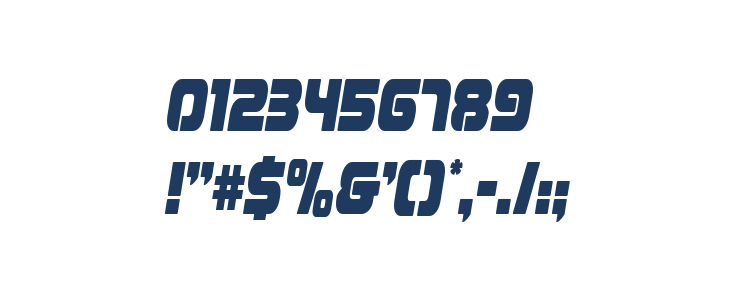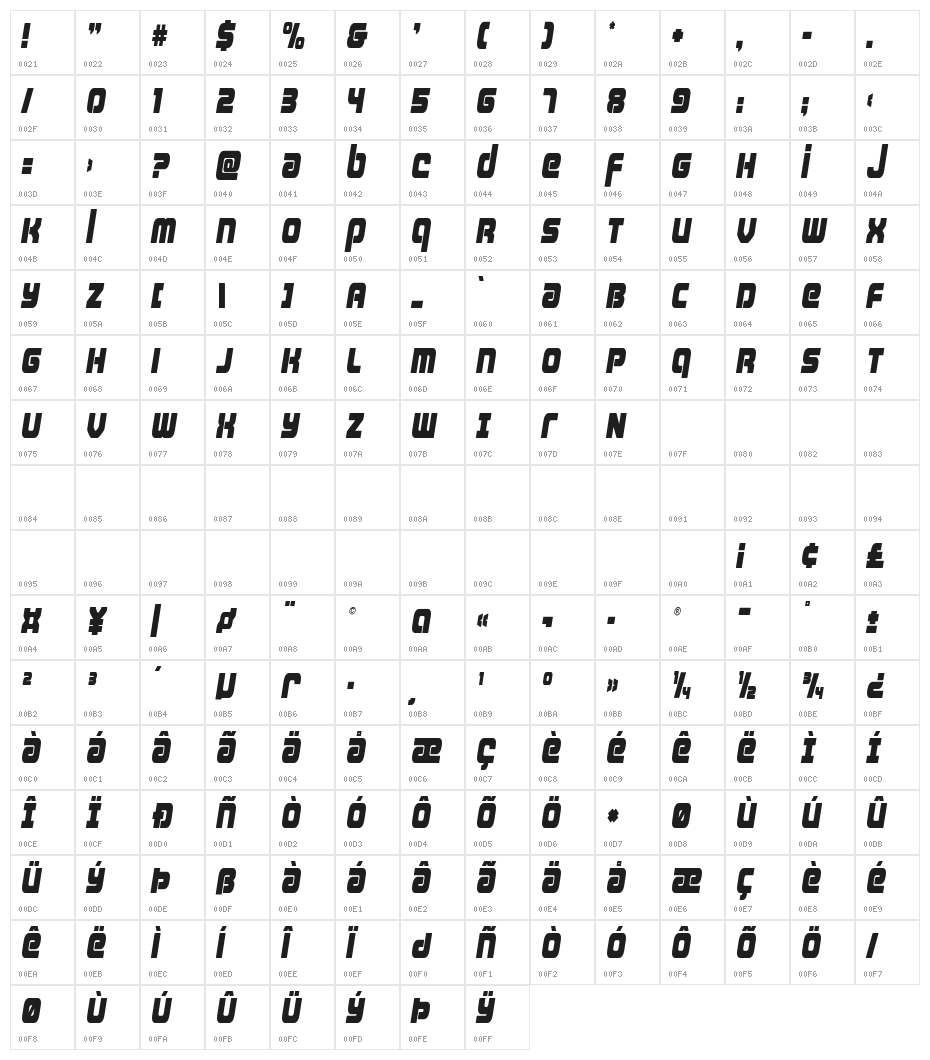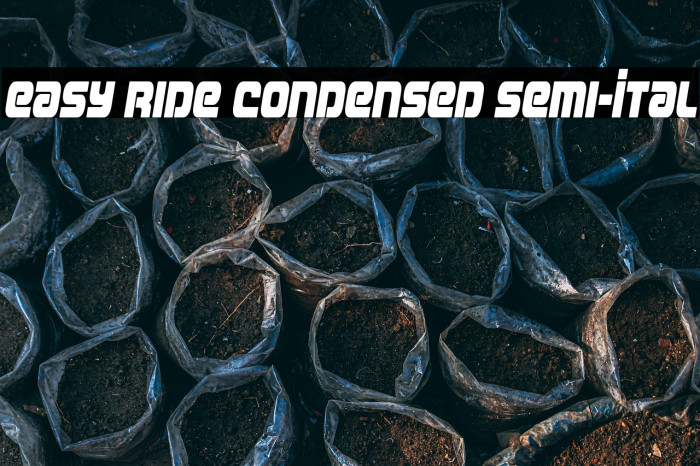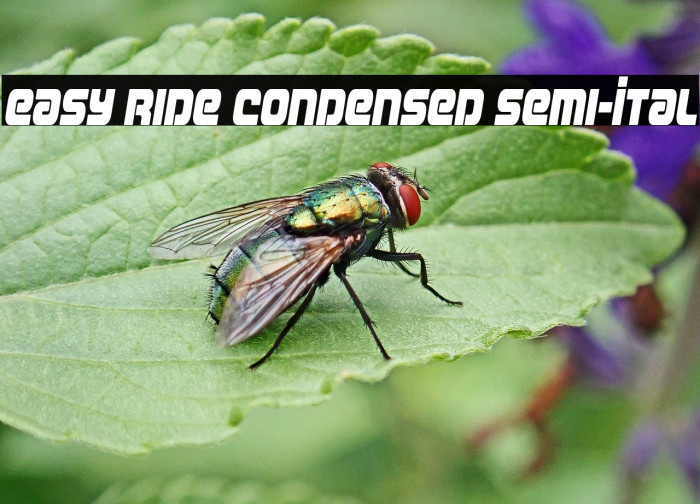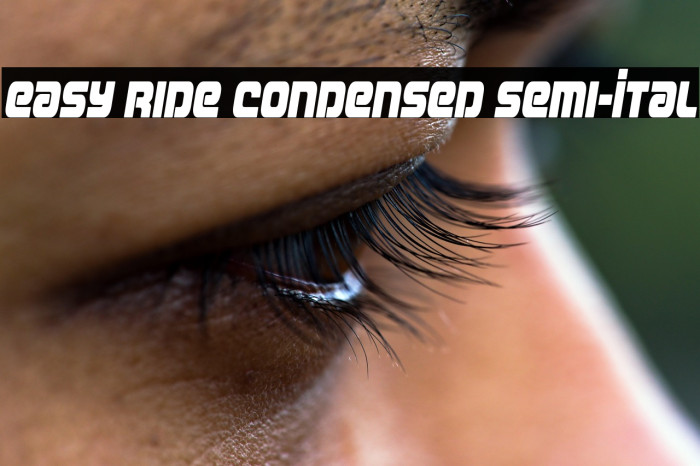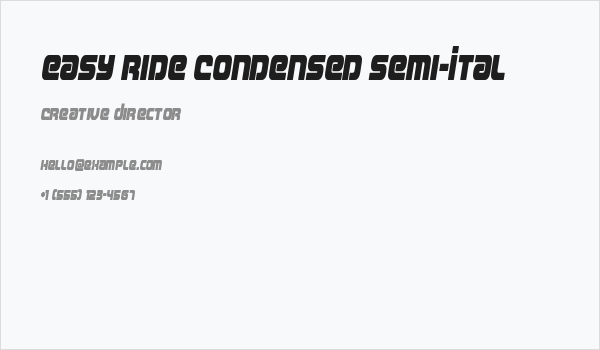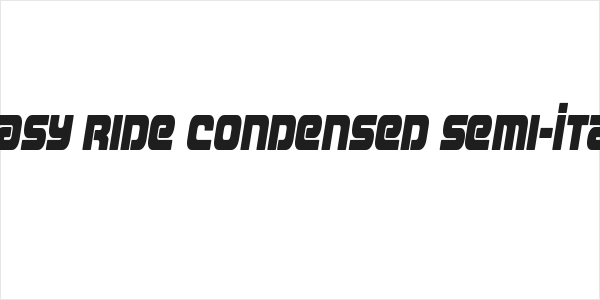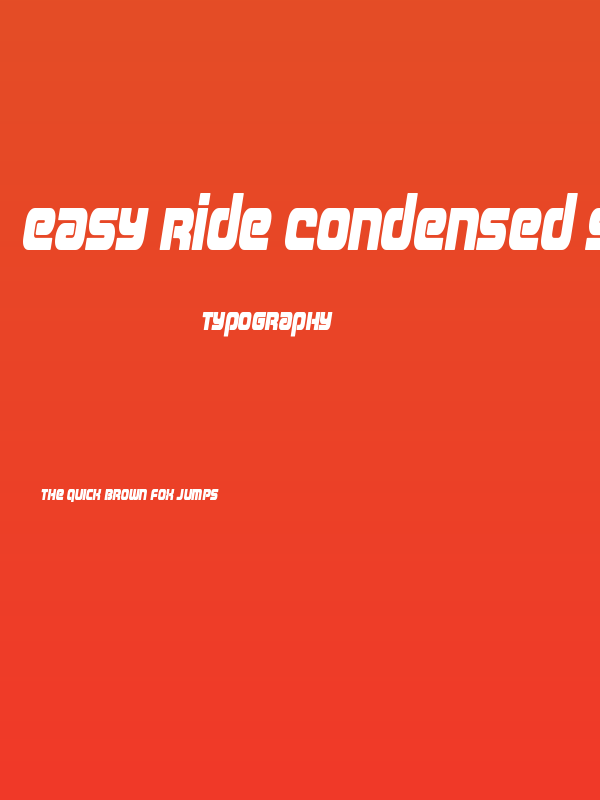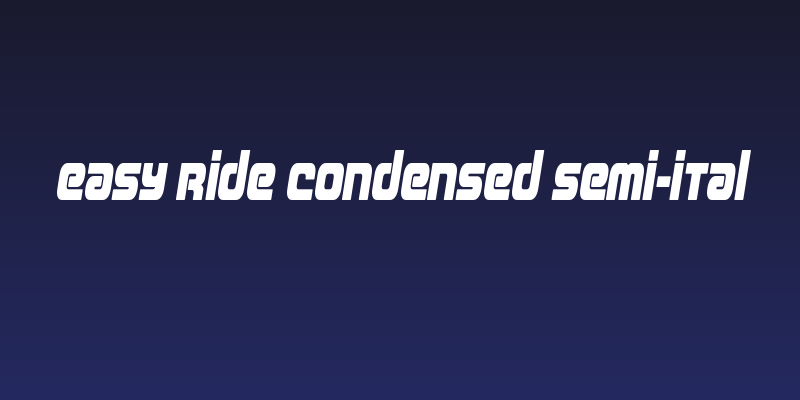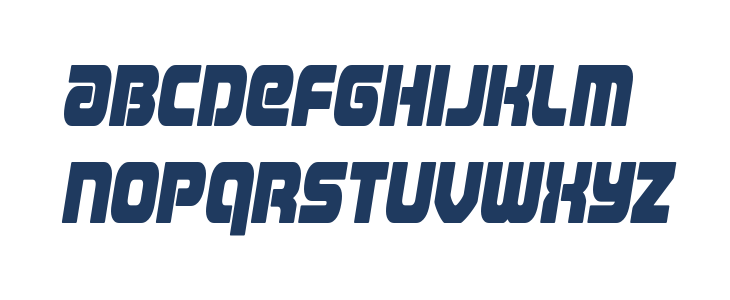
Easy Ride Condensed Semi-Ital Font
Easy Ride Condensed Semi-Ital Description
This font features a bold and dynamic style with a semi-italic slant, giving it a sense of movement and energy. The characters are condensed, creating a compact and impactful appearance. The bold weight ensures strong visibility, making it suitable for attention-grabbing designs. The geometric shapes and sharp angles contribute to a modern and sleek aesthetic. The font maintains consistent stroke thickness, providing a uniform look across all characters. Its unique style is ideal for projects that require a contemporary and assertive typeface.